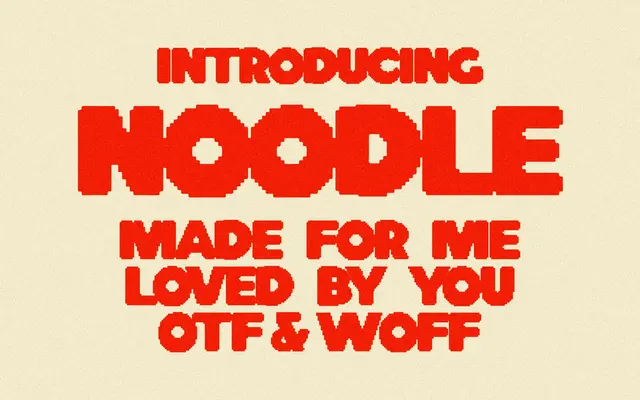
Noodle specimen from Taylor Penton
A pixel-inflected display face built on the DNA of Milkbar, trading the strict grid of 8-bit type for a looser, more organic rhythm.
Where most pixel-style faces are locked to a mechanical grid, Noodle relaxes the construction into something warmer and less precise, described by its maker as what 8-bit looks like when you've only heard rumours about it. It ships as a single Regular weight with 220 glyphs covering Western European languages including Icelandic and Welsh. Letters are drawn to sit snugly at default tracking but hold up equally well with wider spacing.
Described as 8-bit in character but deliberately avoiding a strict grid, Noodle sits in the display category as a pixel-inspired face with organic, hand-drawn looseness rather than mechanical rigidity.